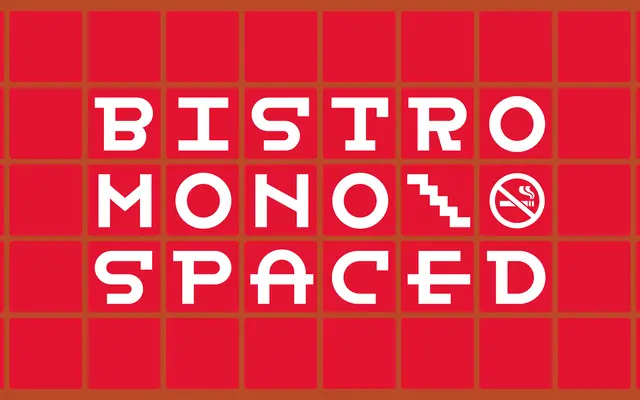
Bistro Mono
A monospaced display face with a decorative personality, originally created for an Italian pub and restaurant.
Designed with signage, menus and branded materials in mind, Bistro Mono carries a distinctive character that sets it apart from utilitarian coding typefaces. Its origins in a single hospitality commission give it a specific visual register suited to personality-led branding. The monospacing adds a structured, even rhythm that works well at display sizes.
A monospaced typeface with decorative, display-oriented character, designed for signage and branding rather than extended text setting.